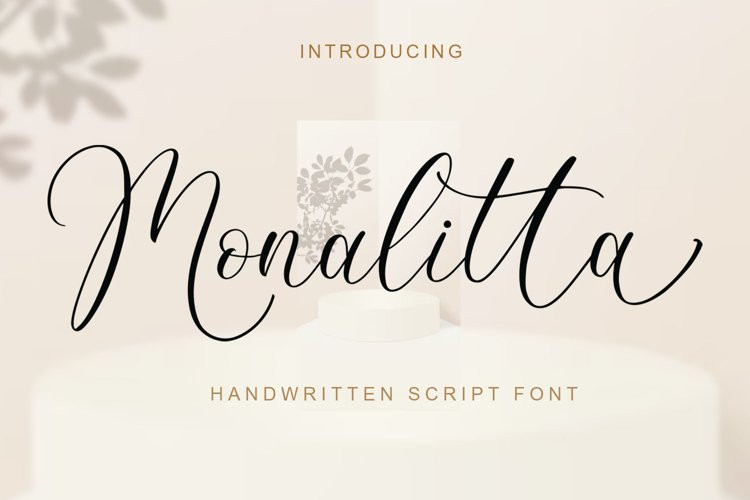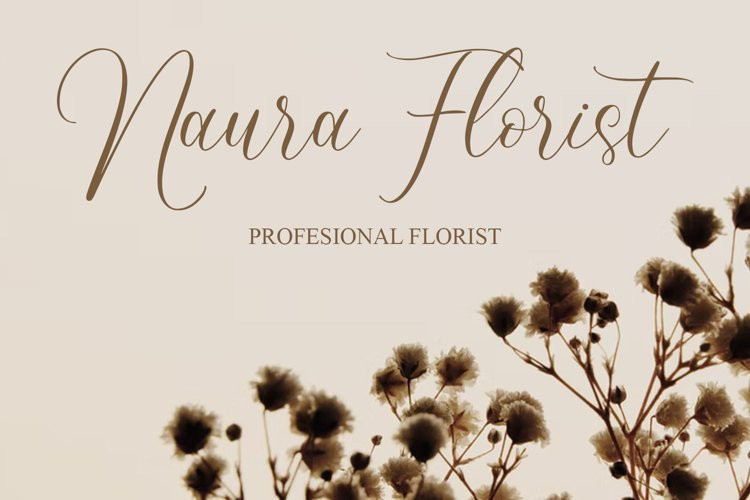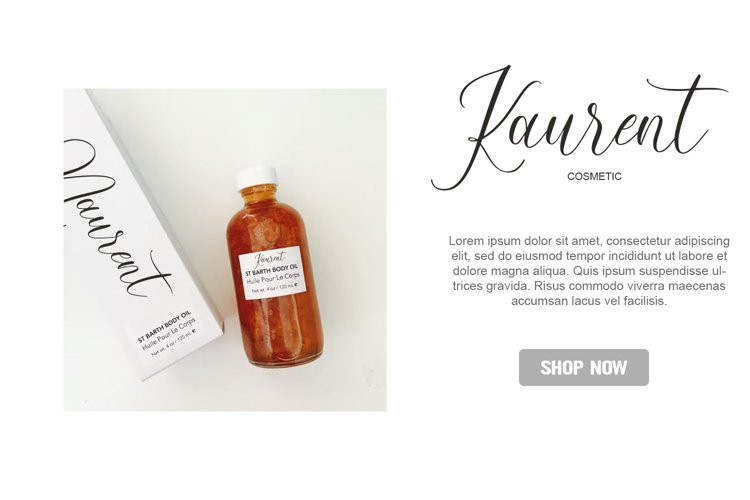
Monalitta Font
Monalitta FontMonalitta Script Font is a thin handwritten font, made in a modern style and also a type of font that is trending among designers today, with a luxurious appearance that will make your designs attractive and look very suitable.
In addition, this Monalitta font is also very suitable for advertising text, book covers, logos, mock ups, watermax, magazines, food designs, products, headers, coffee logos, brands, films, columns, videos, and imagination.